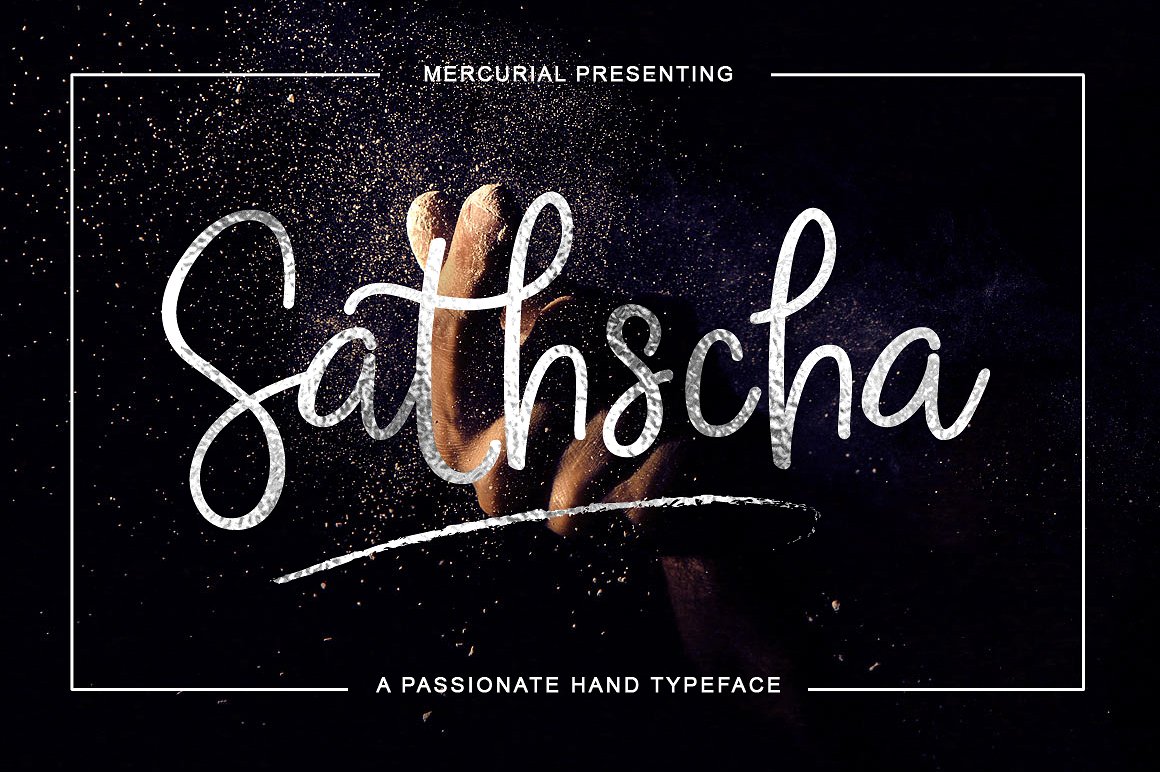
Sathscha Script Font
Introducing Sathscha, a typeface created stylized handwriting is clearly visible charms, made more elegant impression posts and more passionate. It comes with different styles that will make a wonderful impression.
| Designer Name: | MERCURIAL |
| Classification: | Handwritten Fonts, Script Fonts |